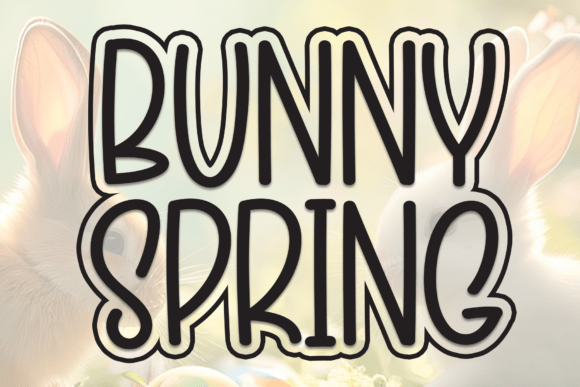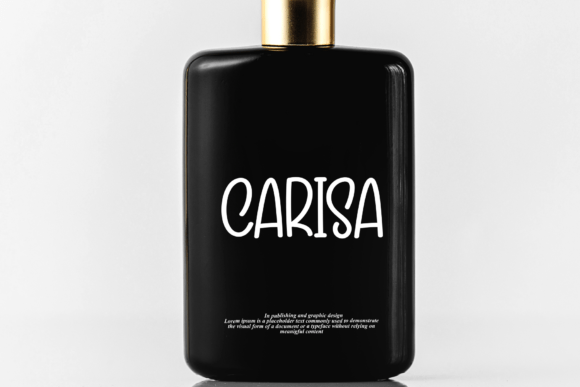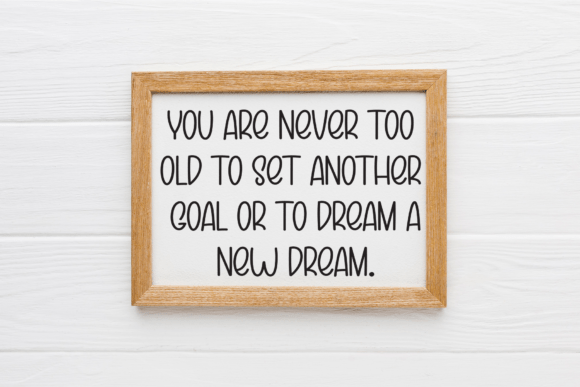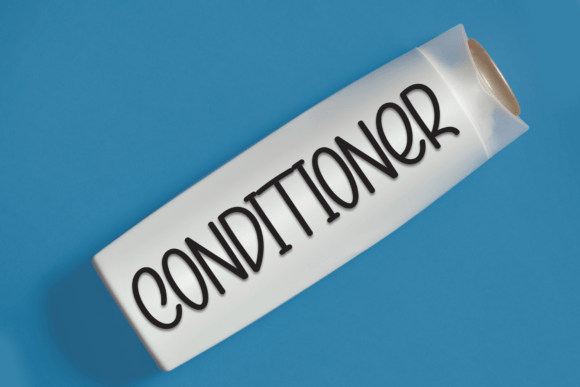
Bunny Spring Font
About the Bunny Spring Font
Elevate your designs with Bunny Spring Font, a font that combines sophistication with readability. This display handwritten font bursts with personality and charm, capturing the warmth of real handwriting with bold, eye-catching strokes. Designed to stand out while maintaining a natural flow, it’s perfect for logos, social media graphics, posters, and anything that calls for a personal, expressive touch. Whether you’re crafting a heartfelt quote or branding a creative product, this font brings authenticity and flair to your design.
Bunny Spring’s bold, playful energy makes it ideal for headlines, short-form text in social media posts, and eye-catching branding elements. It works exceptionally well for projects targeting a young, energetic demographic, such as children’s products, craft businesses, or events promoting a fun and friendly atmosphere. Avoid using it for large blocks of body text or UI elements; its handwritten nature hinders readability in extended passages.
Pairing Bunny Spring with a clean sans-serif like Lato or Open Sans provides a strong contrast, balancing its playful strokes with a modern, legible counterpart. For a more sophisticated look, consider pairing it with a delicate serif like Merriweather, creating a harmonious blend of handwritten charm and classic elegance.
The font’s overall personality is best described as cheerful and approachable, making it unsuitable for projects requiring seriousness or formality. Its hand-drawn aesthetic lends itself to brands emphasizing authenticity and handcrafted quality.
Bunny Spring Font Usage Examples
Bunny Spring Font Example